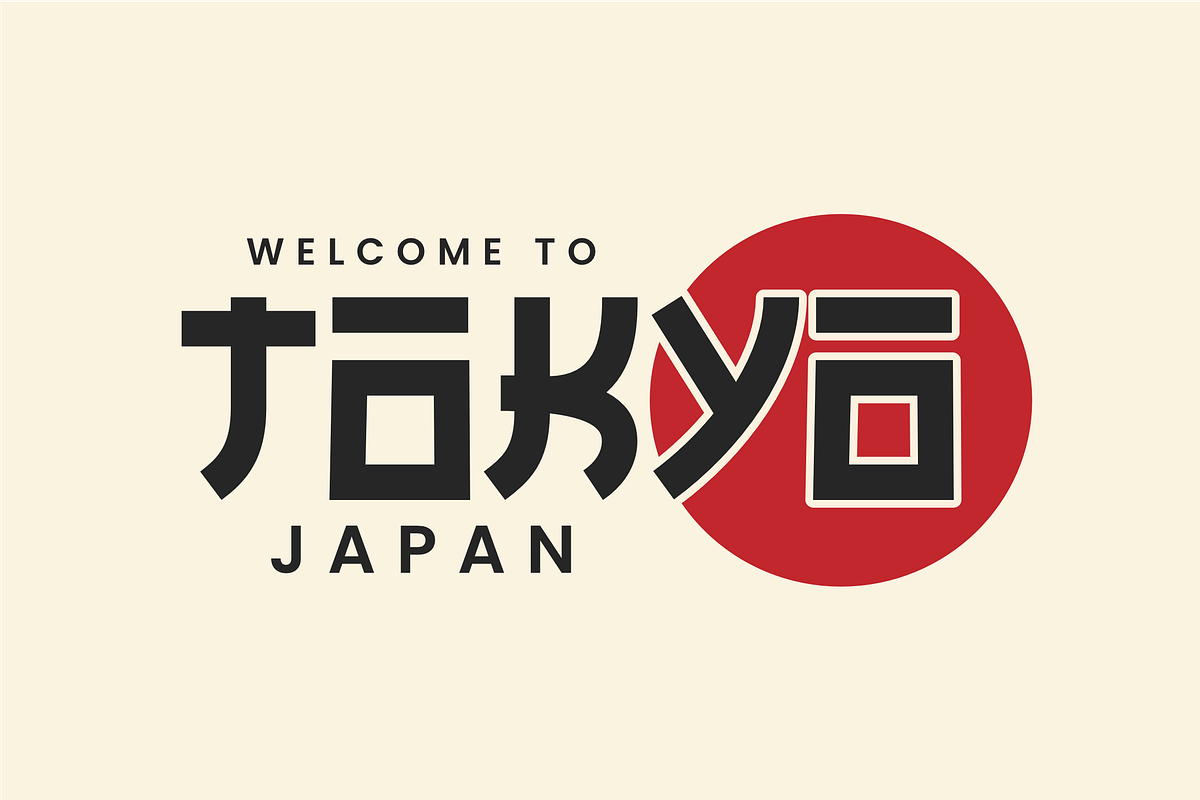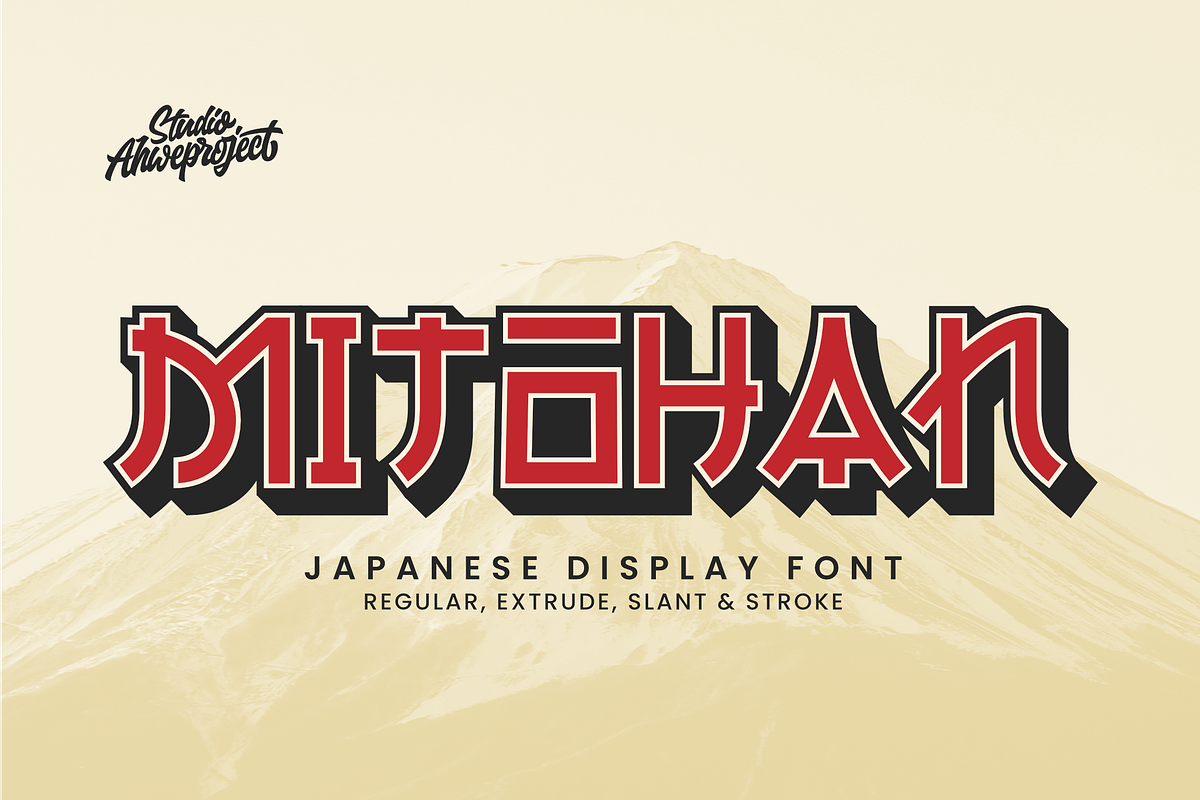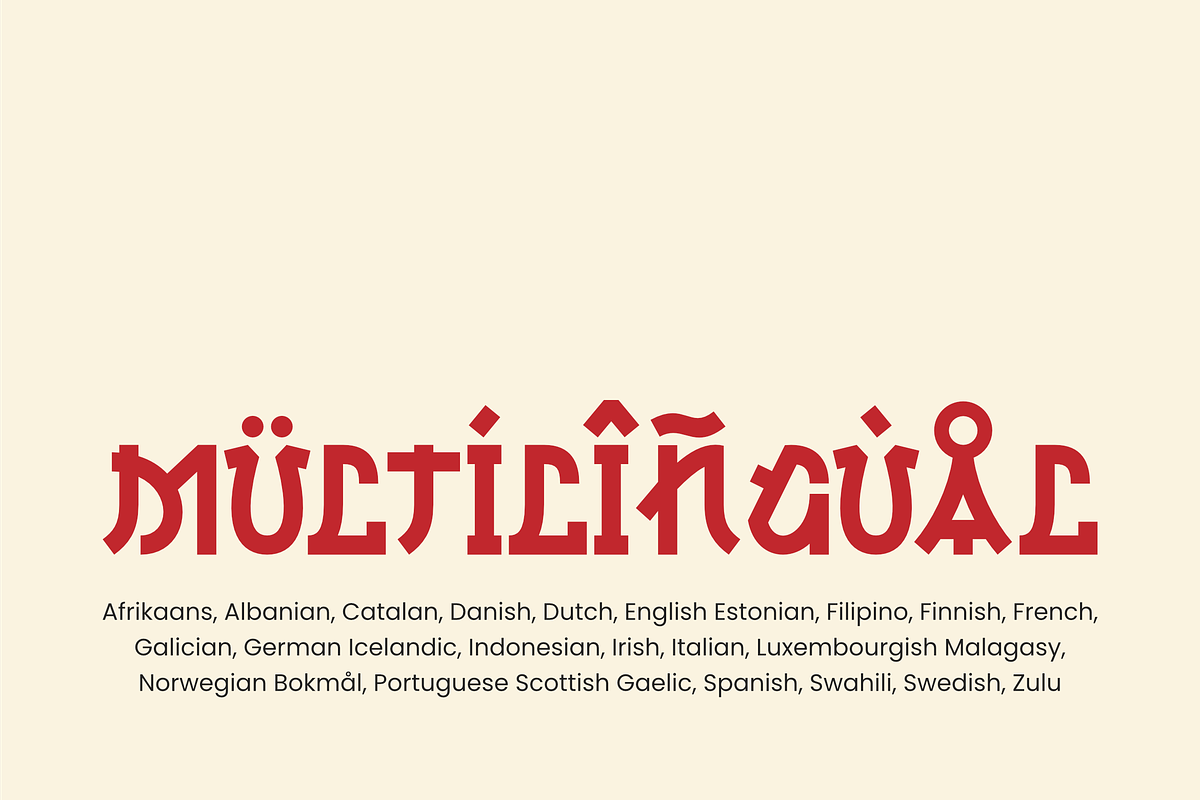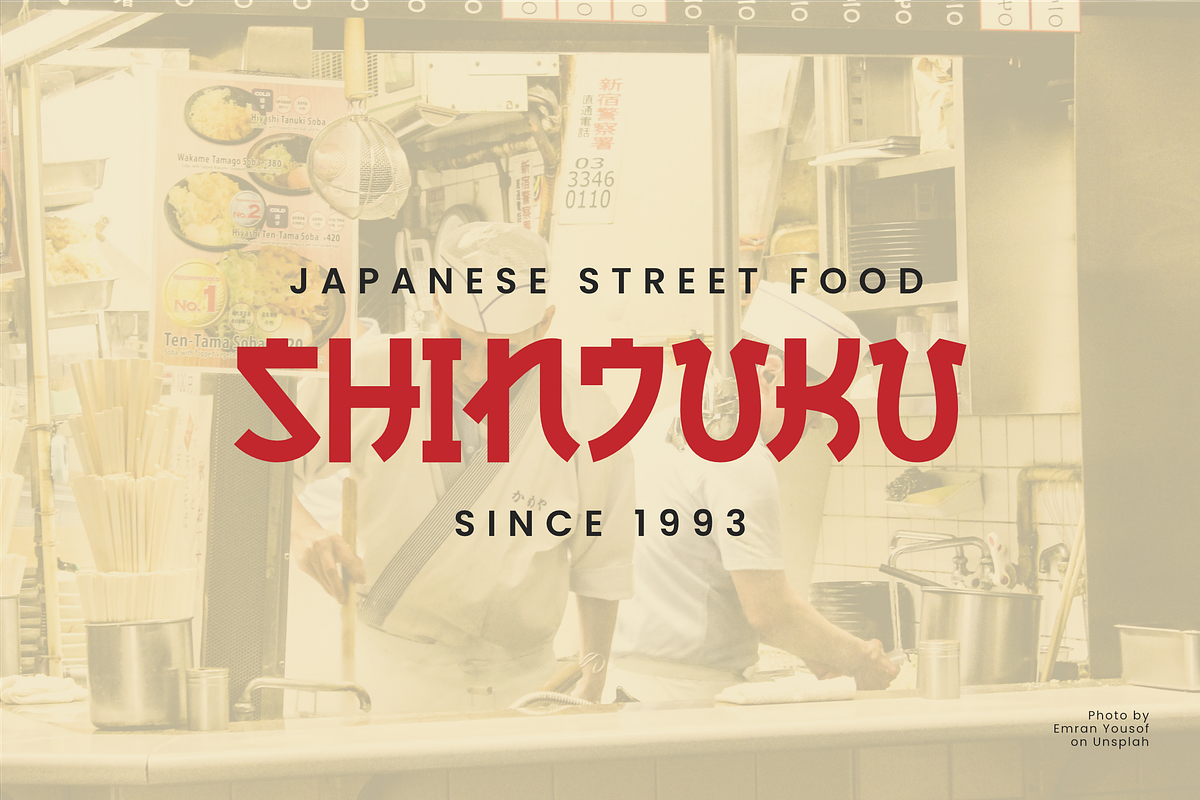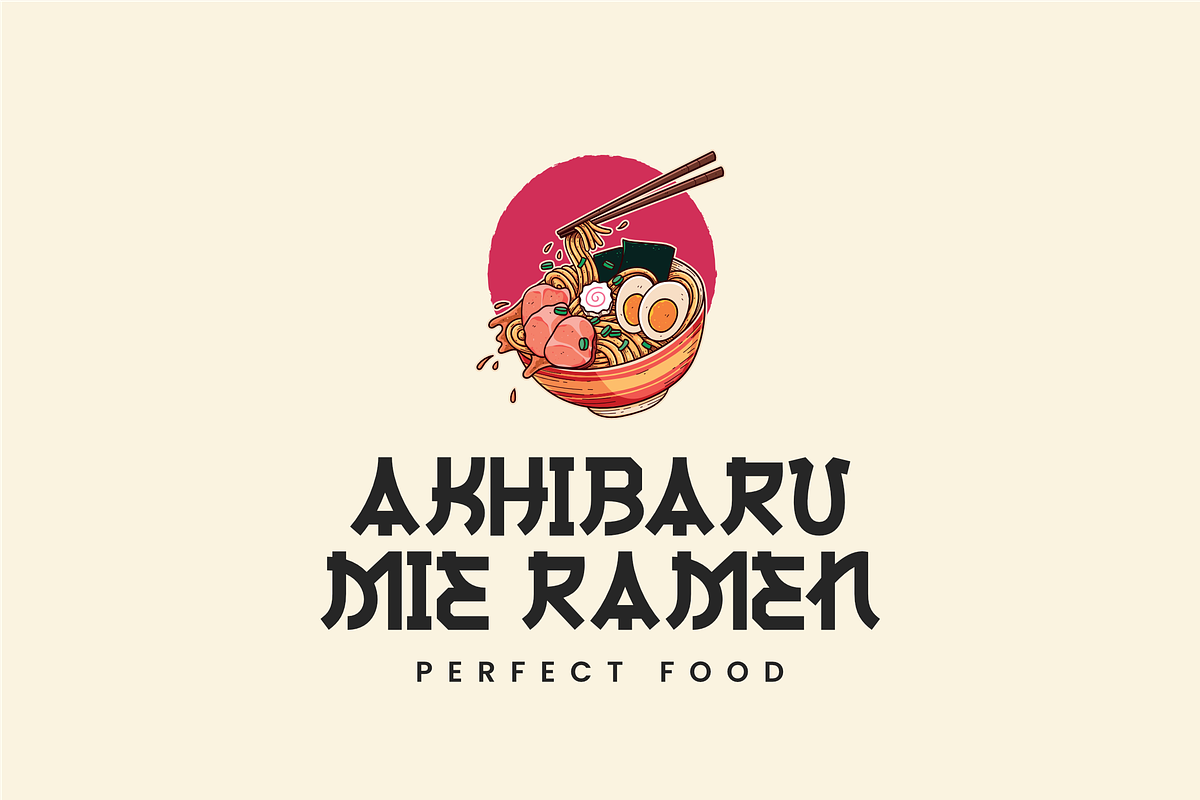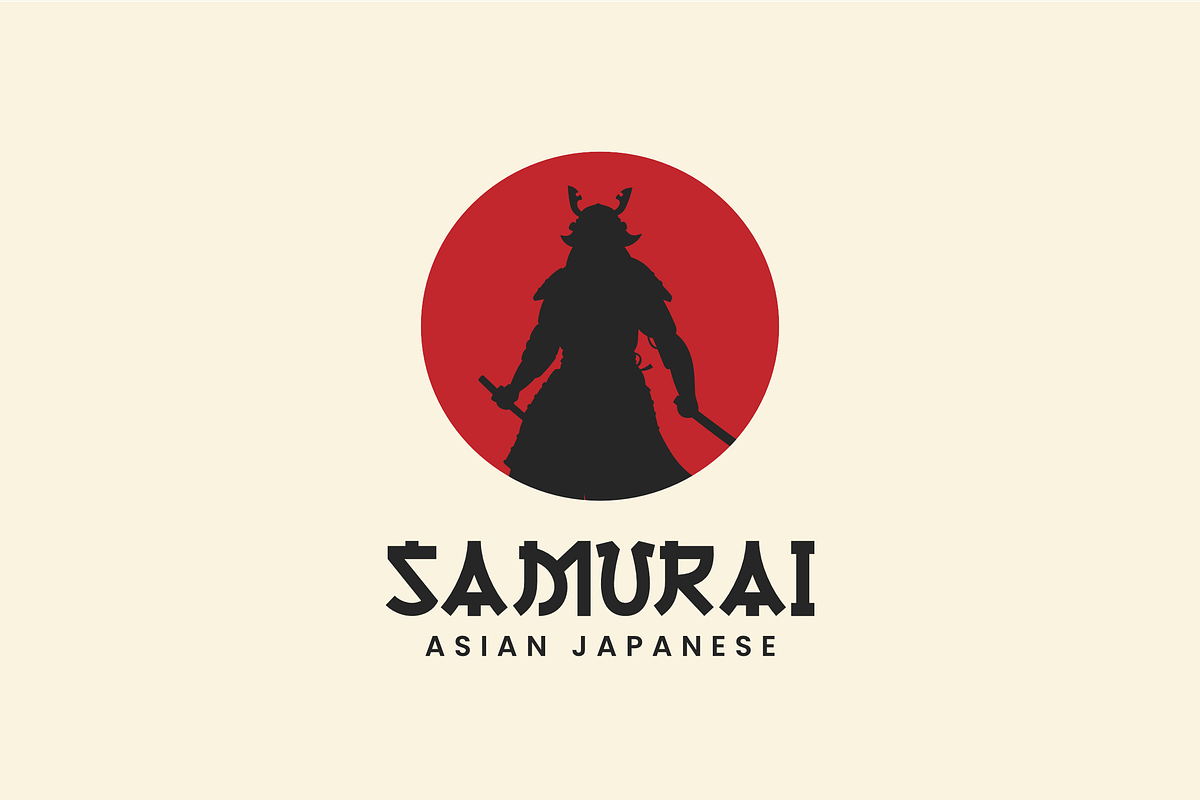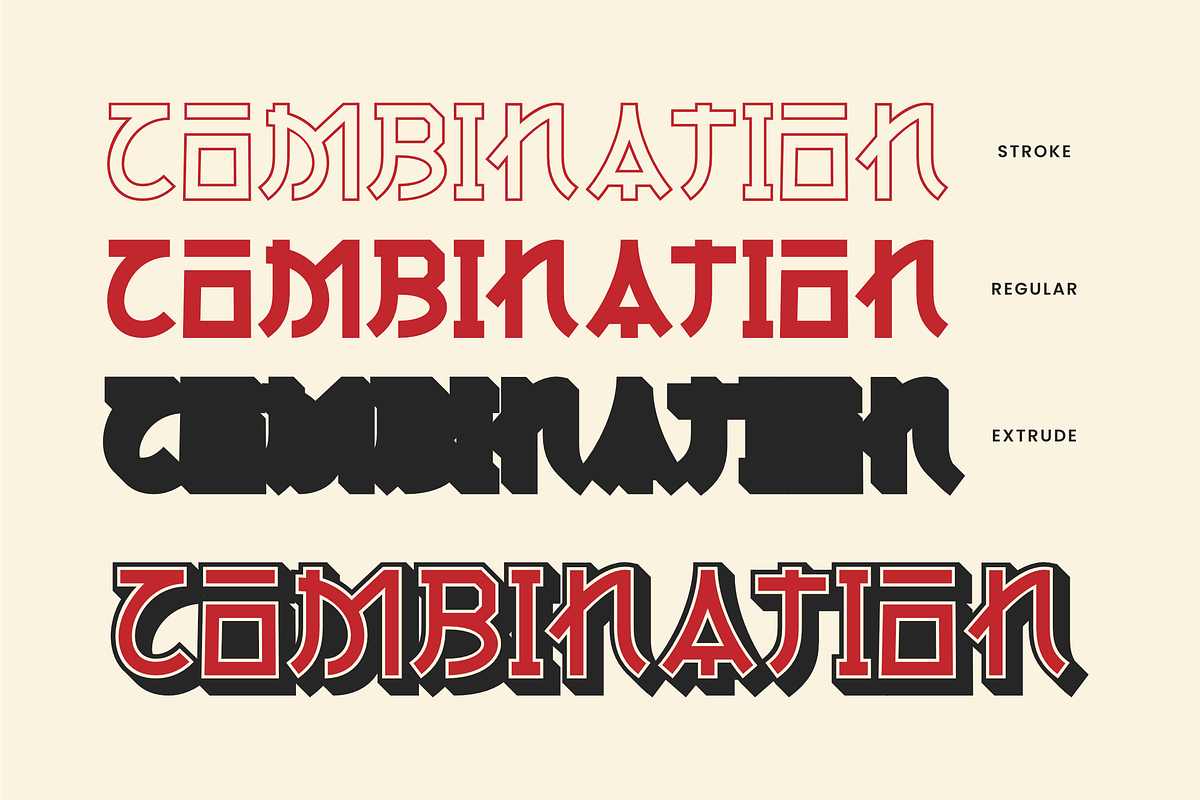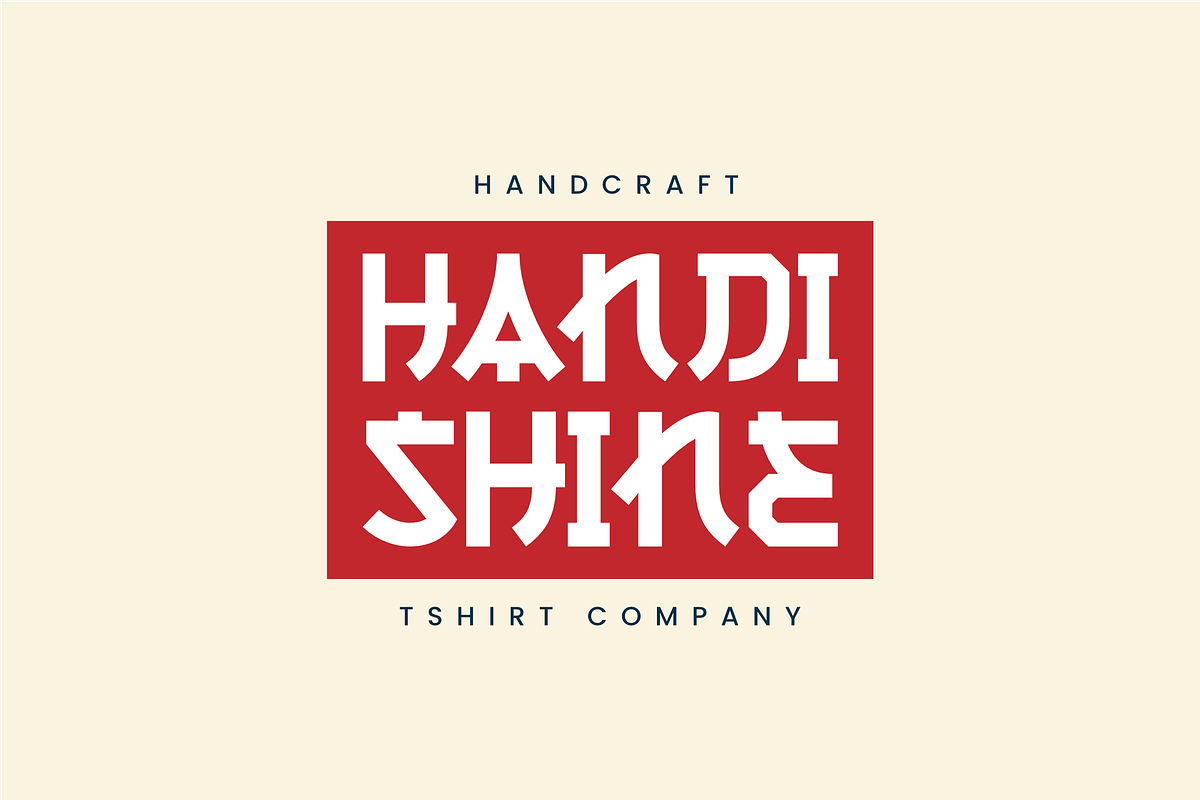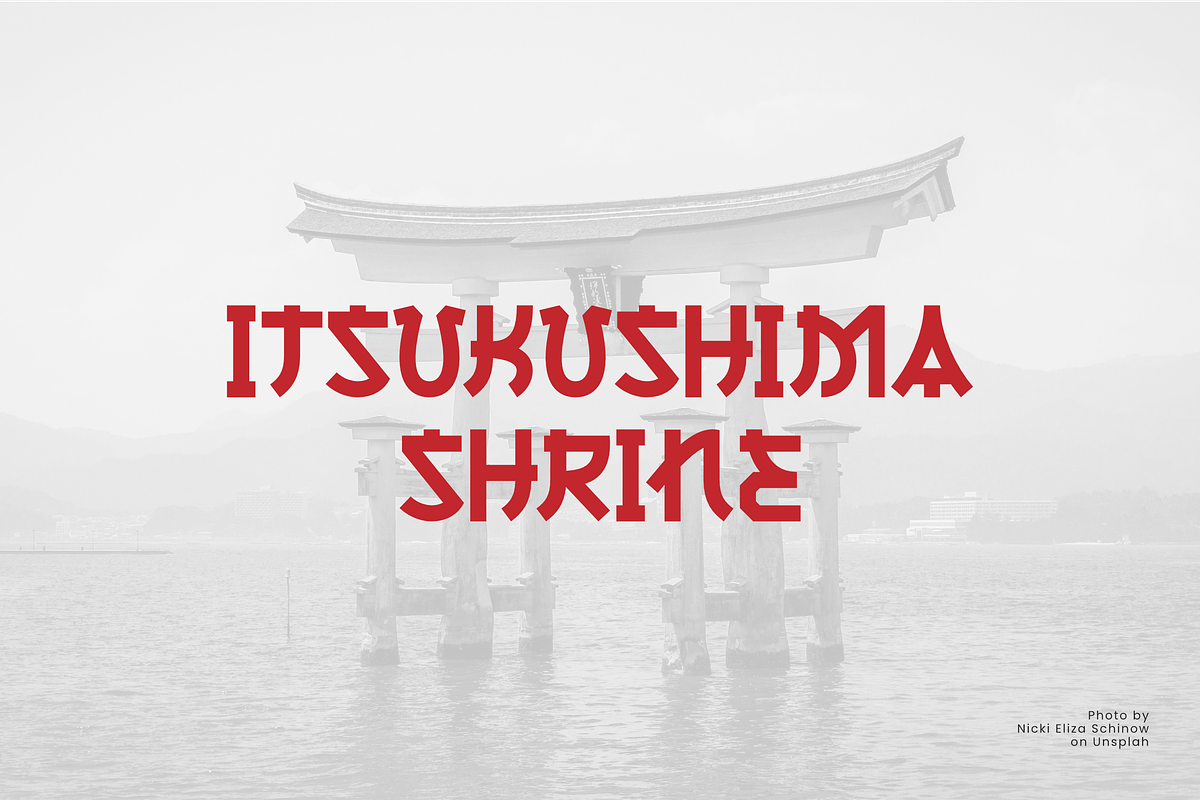
Mitohan - Japanese Display Font
Bring the spirit of Japan into your designs with Mitohan – a unique display font inspired by traditional Japanese aesthetics fused with a modern twist. Perfect for eye-catching projects such as posters, branding, apparel, logos, food packaging, and anything with an Asian flair.
With bold letterforms, geometric Japanese-style elements, and a retro-futuristic touch, Mitohan comes in 4 styles: Regular, Extrude, Slant, and Stroke – offering flexibility and striking visual depth to every word.
All caps with a modern Japanese vibe
Numbers and punctuation
4 versatile styles (Regular, Extrude, Slant, Stroke)
Perfect for headlines, logos, and bold statements